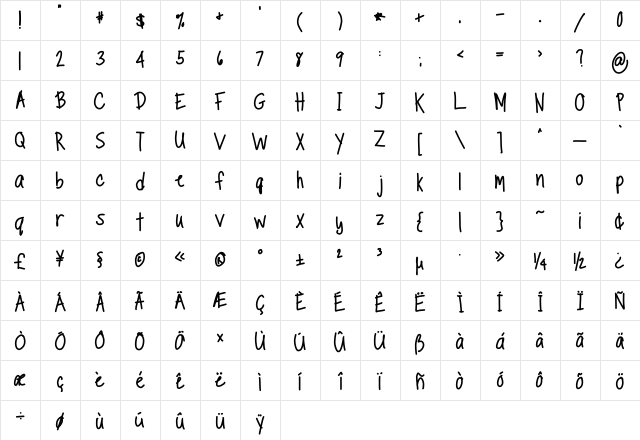
TippyToes Bold Bold Font Preview
TippyToes Bold Bold
Design Context for TippyToes Bold Typeface
TippyToes Bold is a composed and adaptable typeface that performs quietly and consistently across a wide range of design contexts. The heavy weight commands attention and anchors typographic hierarchies.